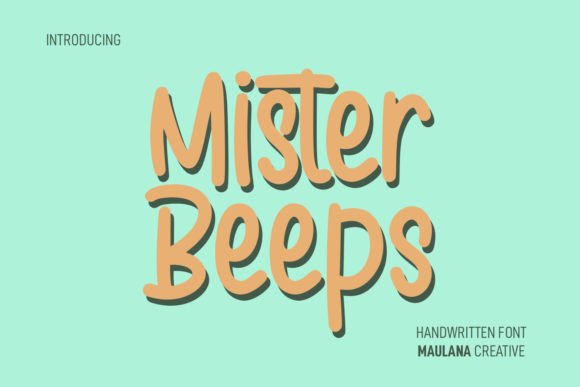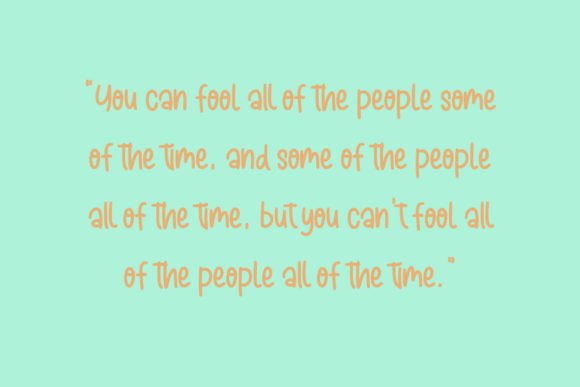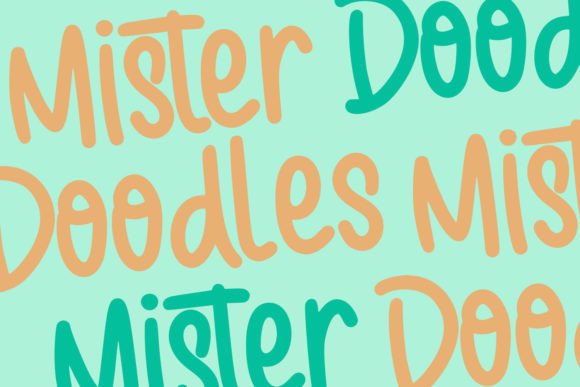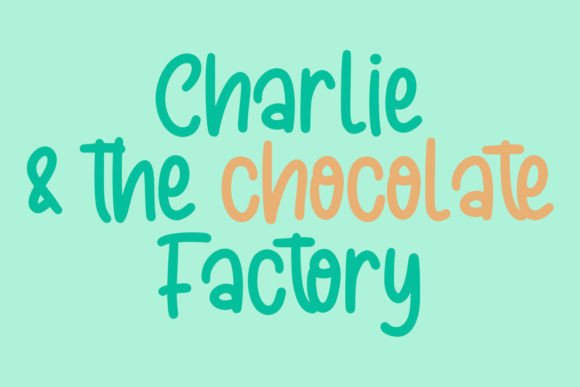
About the Mister Beeps Handwritten Font Font
Presenting Mister Beeps Handwritten Font Font, a unique and stylish typeface that will make your work stand out. Mister Beeps is a casual and friendly handwritten font. Whimsical and a bit quirky, this font will brighten up each of your designs. Add it confidently to your projects, and you will love the results.
Mister Beeps shines in projects requiring a playful and approachable feel. Ideal uses include logos for children’s brands, social media graphics, short headlines, invitations, and packaging for quirky products. Avoid using it for large bodies of text or UI elements; its informal nature compromises readability in extended use.
Pair Mister Beeps with a clean sans-serif like Open Sans for contrast and readability in multi-font designs, or with a more geometric sans-serif for a modern feel. A simple serif like Lora can add a touch of sophistication if needed. Avoid pairing with other script fonts, which could create visual clutter.
Its core personality is undeniably friendly and whimsical, conveying a sense of youthful energy and approachability. This makes it unsuitable for projects demanding seriousness or formality.